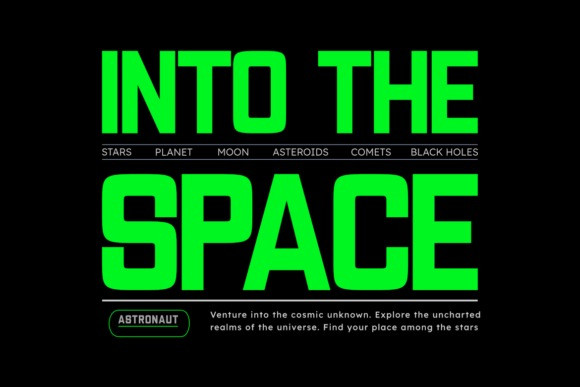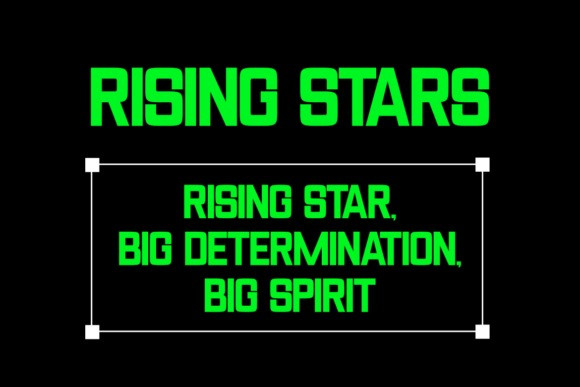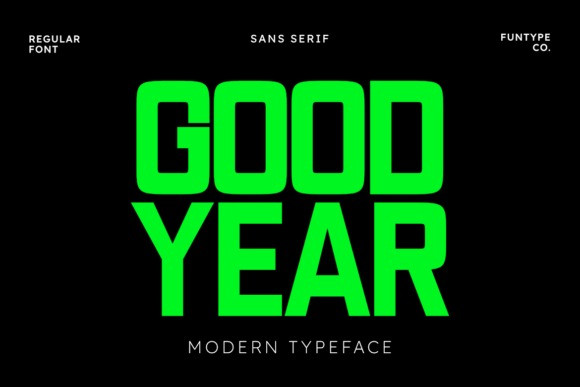
Good Year Font
Good Year Font is a modern sans-serif typeface with bold proportions and a clean design. Its strong geometry and contemporary feel make it perfect for striking headlines, posters, logos, branding, advertising, and digital media. Whether used for editorial layouts, social media graphics, or professional presentations, Good Year delivers a confident and stylish look that stands out in any project.